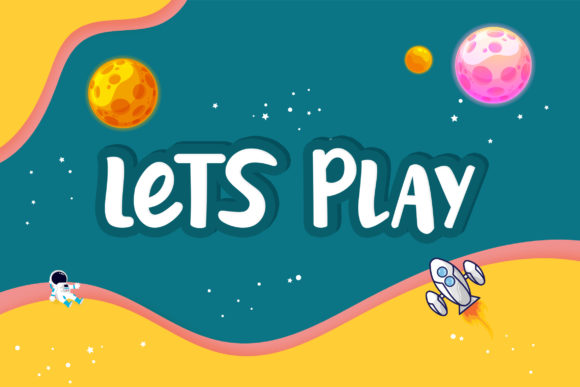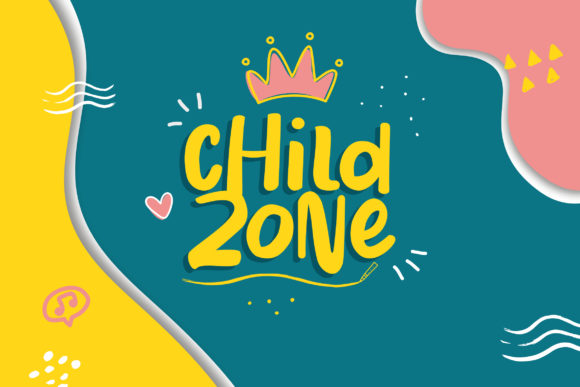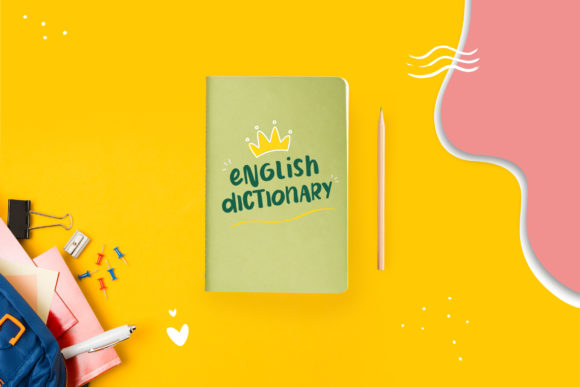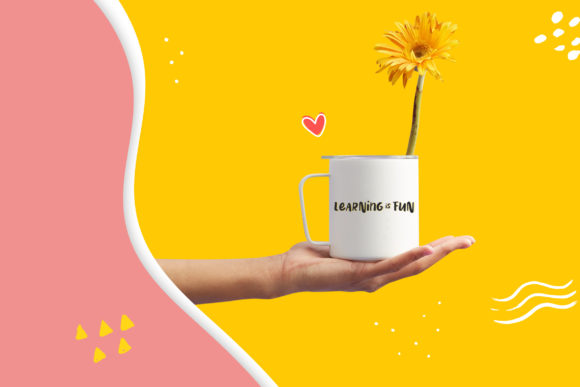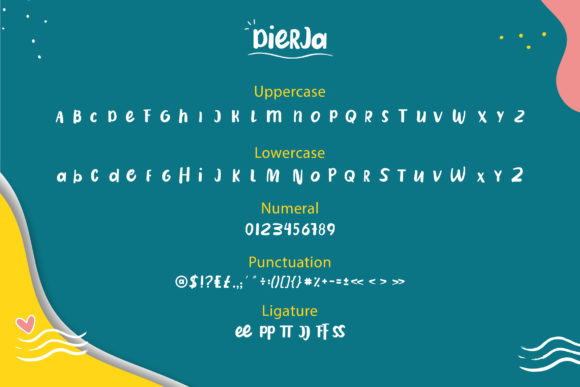
Dierja Font: Unleash Your Creativity with this Playful and Trendy Display Font
Are you tired of using the same old fonts in your designs? Look no further than Dierja Font, a playful and trendy display font that’s sure to take your creative projects to the next level. With its natural and unique style, Dierja Font is incredibly versatile and can be used in a wide range of designs, from modern and edgy to whimsical and fun.
The Unique Characteristics of Dierja Font
Dierja Font is a one-of-a-kind font that’s designed to make a statement. Its playful and trendy style is perfect for designers and crafters who want to add a touch of personality to their work. The font’s natural and unique style makes it incredibly fitting for a large pool of designs, and the only limit is your imagination!
One of the standout features of Dierja Font is its highly legible and clean design. The font is easy to read, even at small sizes, making it perfect for use in a variety of applications, from digital media to print materials. Additionally, the font’s unique style ensures that it will stand out from the crowd, making it perfect for designers who want to create something truly unique.
What Makes Dierja Font So Versatile?
Dierja Font is an incredibly versatile font that can be used in a wide range of designs. Its playful and trendy style makes it perfect for use in:
- Print materials, such as brochures and flyers
Whether you’re a professional designer or a crafty DIY enthusiast, Dierja Font is the perfect choice for any project that requires a unique and eye-catching font.
How to Use Dierja Font in Your Designs
Using Dierja Font in your designs is easy. Here are a few tips to get you started:
- Pair Dierja Font with a clean and simple font for a bold and eye-catching look
- Use Dierja Font as a headline font to add a touch of personality to your design
- Don’t be afraid to get creative and try new things – the only limit is your imagination!
Why Designers and Crafters Love Dierja Font
Dierja Font has quickly become a favorite among designers and crafters, and for good reason. Here are just a few reasons why:
- Its unique and playful style adds a touch of personality to any design
- Its highly legible and clean design makes it easy to read, even at small sizes
- Its versatility makes it perfect for use in a wide range of designs and applications
Whether you’re a professional designer or a crafty DIY enthusiast, Dierja Font is the perfect choice for any project that requires a unique and eye-catching font. So go ahead, get creative, and see what amazing things you can create with Dierja Font!